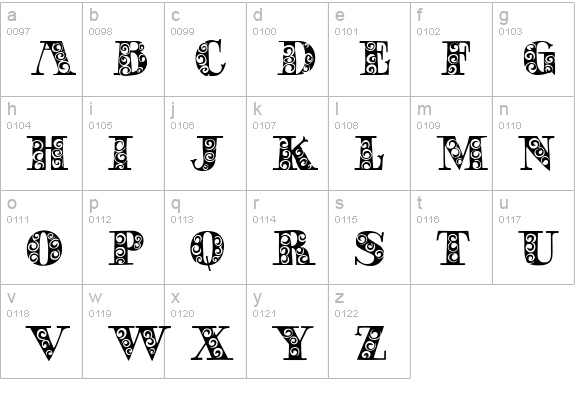
GypsyRose Font Details
GypsyRose font is a whimsical and elegant typeface that brings a touch of magic to your designs. With its flowing lines and intricate details, this font exudes a sense of enchantment and mystery. Whether you're working on a fairy tale book cover, a fantasy-themed poster, or a whimsical invitation, GypsyRose font is sure to add a touch of charm to your project. The best part? GypsyRose font is completely free! You can easily download this stunning font at FontsMarket.com and start incorporating its unique style into your creative projects. Don't miss out on this opportunity to enhance your designs with the beauty and grace of GypsyRose font.